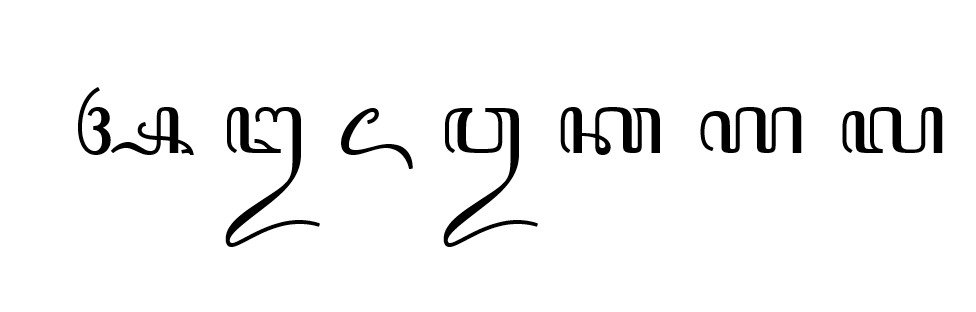
Javanese Text is added to Windows to support the Javanese writing script. This script is used to write the Javanese language spoken in Indonesia and Suriname. Javanese Text is a document font and the style of the design conforms with traditional Javanese manuscript and metal type models.
| Designers | John Hudson |